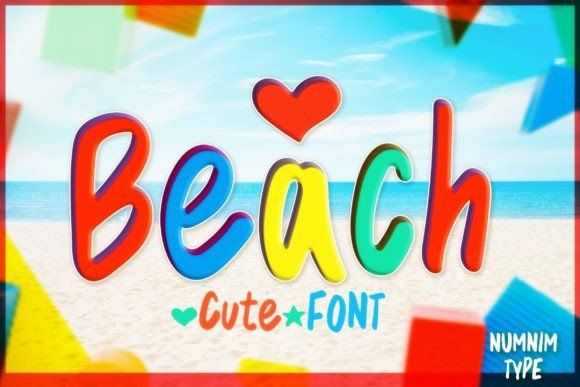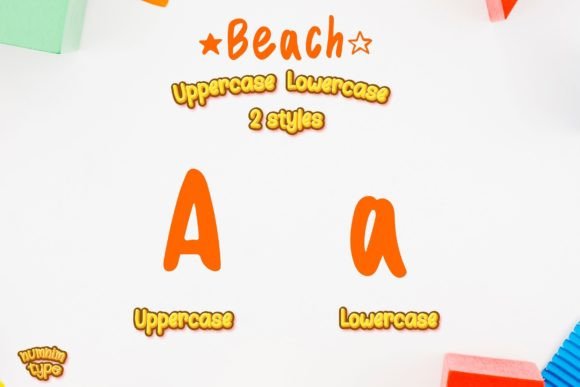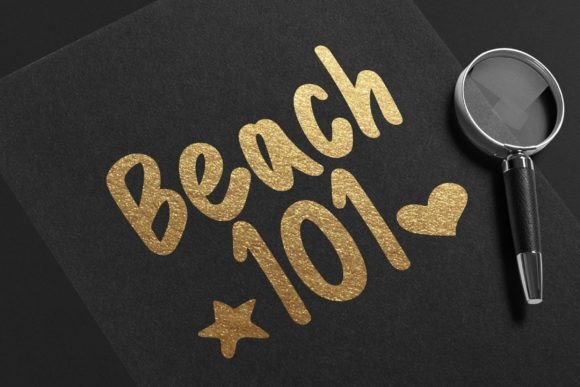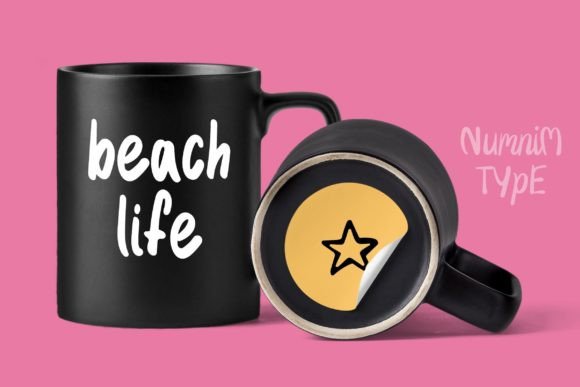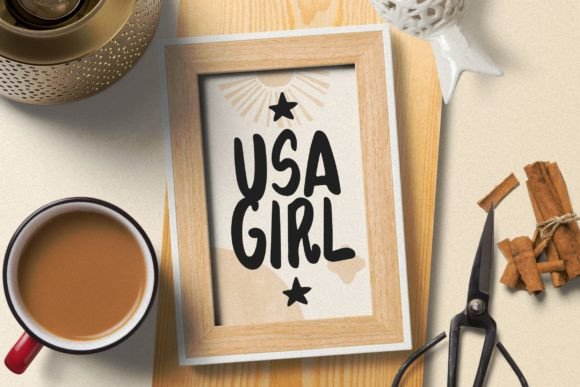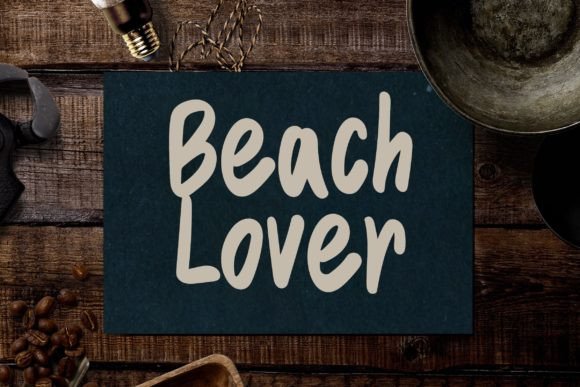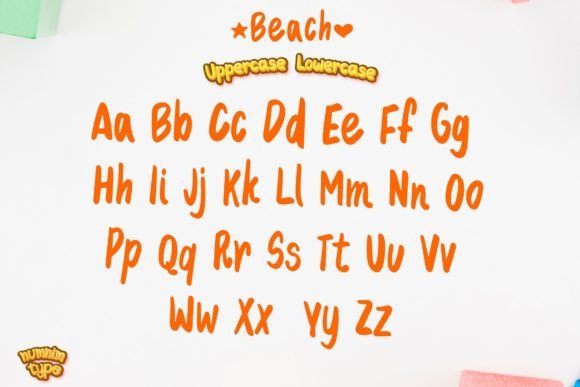
About Beach Font
“Embrace the Vibrancy of Love with Beach Handwritten LGBT+ Font
Celebrate love, diversity, and inclusion with Beach, a cool and uniquely crafted handwritten font designed to capture the spirit of the LGBT+ community. With its fun and playful characters, Beach is the perfect choice for expressing love, pride, and joy in your designs.
The essence of Beach lies in its vibrant and inclusive design. Each letterform is carefully crafted to represent the diversity and unity within the LGBT+ community. The playful curves and bold strokes create a sense of energy and excitement, making this font ideal for spreading love and positivity.
Imagine using Beach to create eye-catching stickers that celebrate different sexual orientations and gender identities. Picture it adorning mugs and t-shirts with empowering messages of acceptance and pride. Envision Beach gracing Summer event cards and invitations, setting the tone for a celebration of love and togetherness.
One of the standout features of Beach is its versatility. Its bold and legible design ensures clear communication, making it suitable for a wide range of applications. Whether you’re designing merchandise, event materials, or social media graphics, Beach adds a touch of color and vibrancy to your creations.
Let Beach be your creative ally in promoting love, acceptance, and unity. Its playful charm and colorful personality will resonate with people from all walks of life, making your designs not only visually appealing but also emotionally impactful. Embrace the spirit of love and pride with Beach Handwritten LGBT+ Font, and let your designs shine with positivity and inclusivity.”